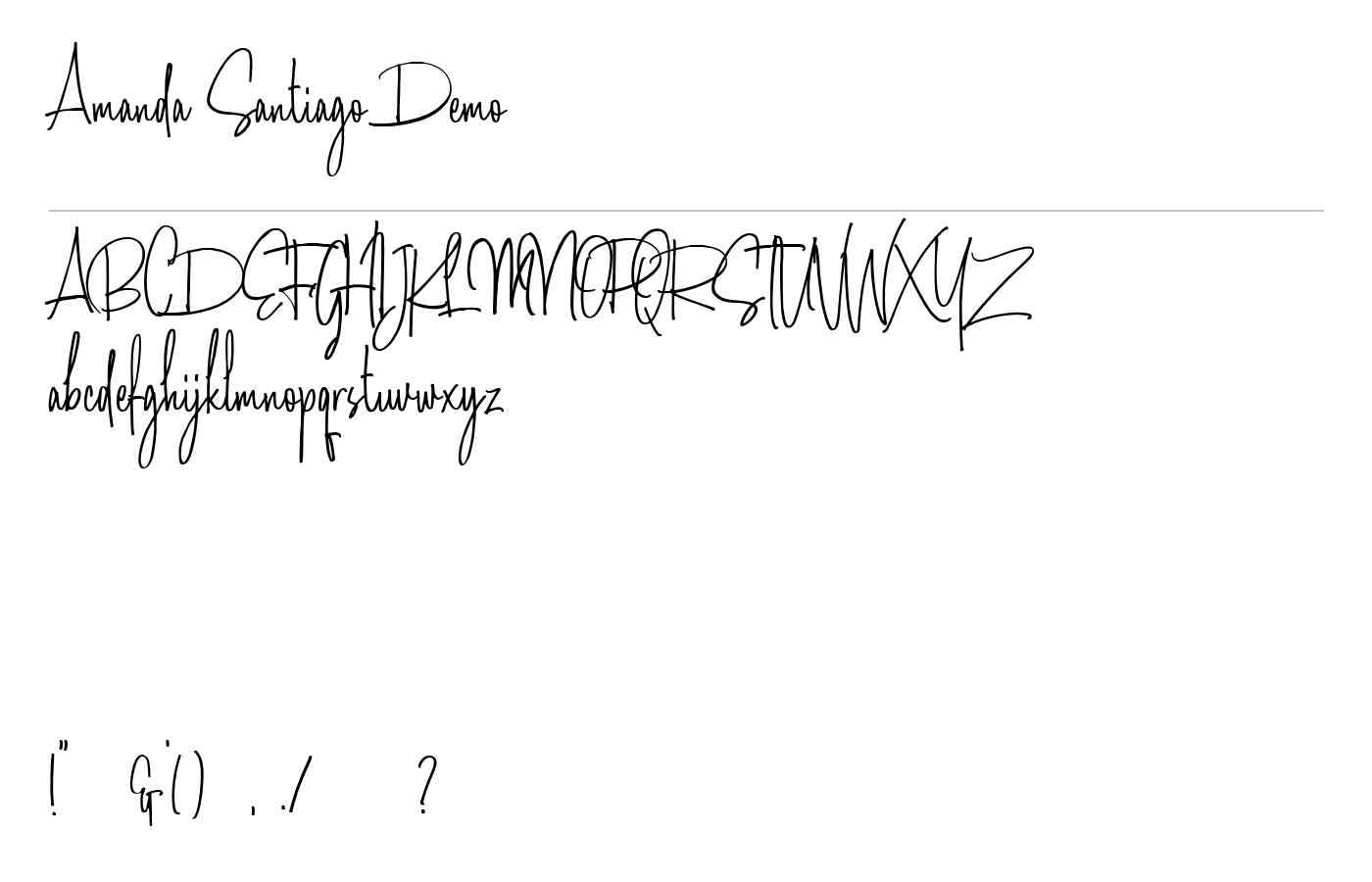
Amanda Santiago Demo is a slender, handwritten script font characterized by its tall, delicate letterforms and playful, irregular strokes that mimic natural penmanship. Its thin, fluid lines and varied letter heights give it a casual yet artistic feel, making it ideal for creative projects like personal branding, invitations, and informal editorial designs where a touch of personality and spontaneity is desired.
Amanda Santiago Demo Font
About Amanda Santiago Demo Font